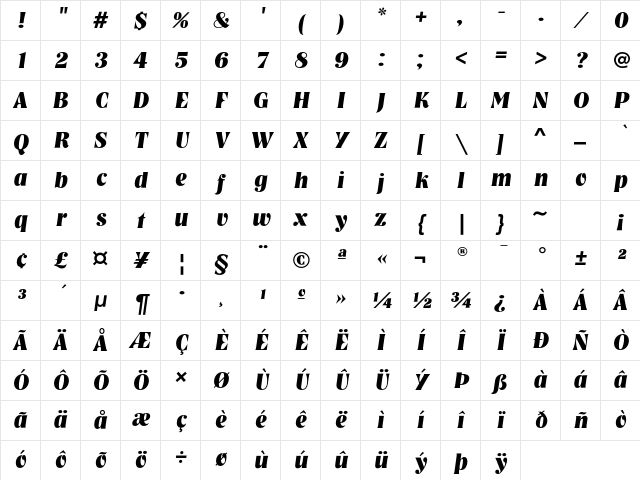
NashvilleEF BoldItalic Free Font
Design Context for NashvilleEF
NashvilleEF is a composed and adaptable typeface that performs quietly and consistently across a wide range of design contexts. The slanted form adds forward momentum and visual energy. Its bold stroke weight gives it real presence on the page.
Pro Tip: Use NashvilleEF for emphasis, pull quotes, and subheadings where its slanted energy can add rhythm to the layout.